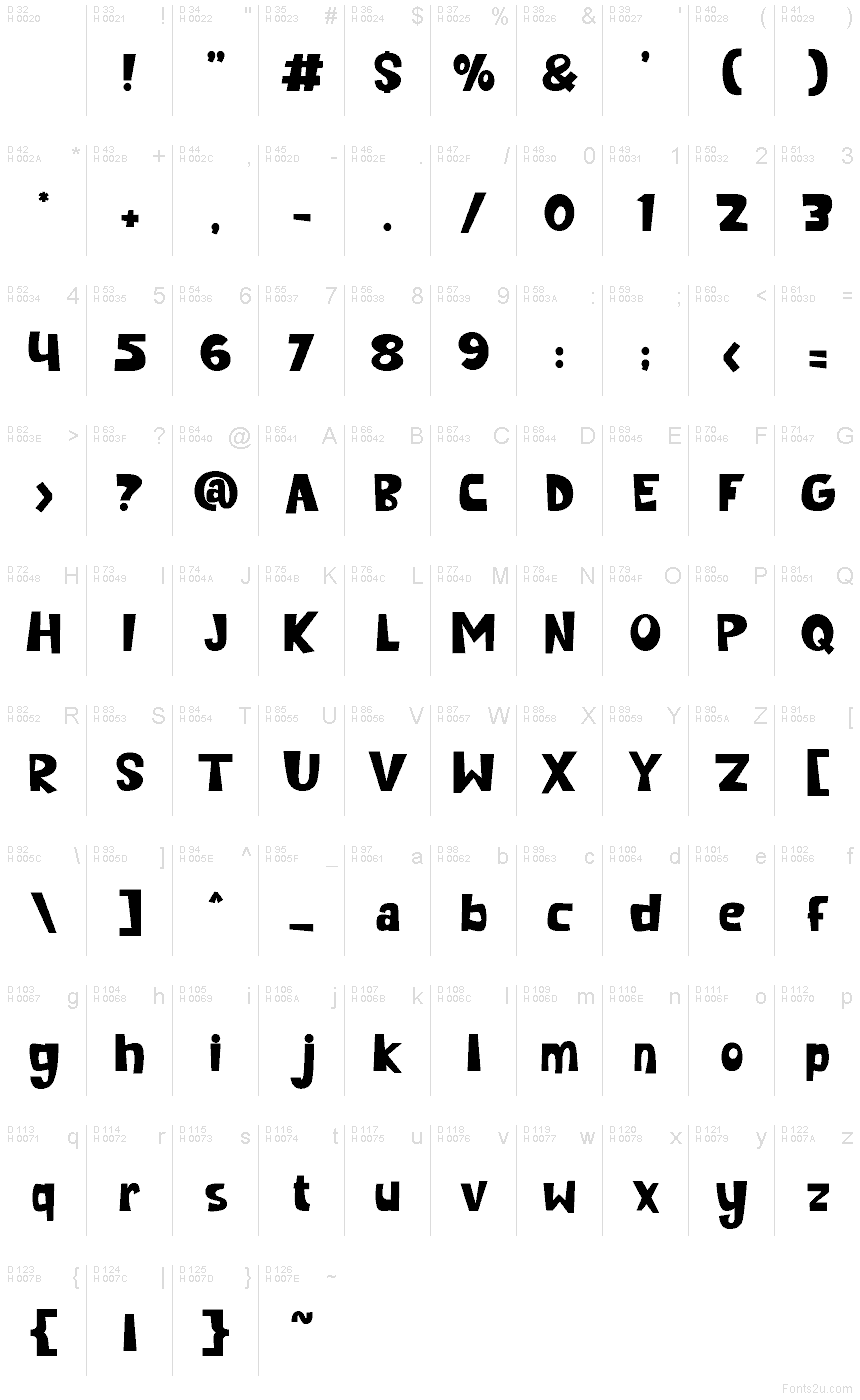
Cedar Heaven
Cedar Heaven font by PutraCetol Studio is a bold display font in decorative style. Cedar Heaven is notable for its rounded style, organic flow, approachable tone, and casual feel. This combination makes the font a suitable choice for contemporary visual designs.
Use this free casual display font to set titles and text on T-shirts, covers, album art, posters and flyers. Its applications extend to branding & packaging projects with potential use in title of blogs as well.